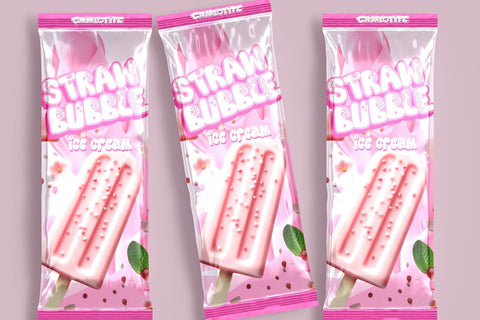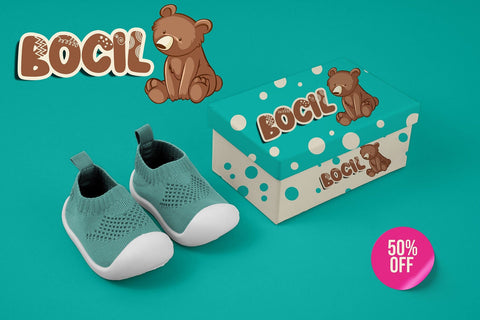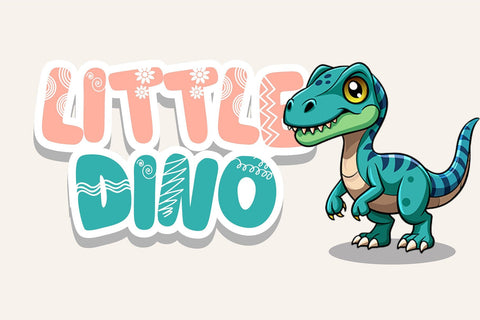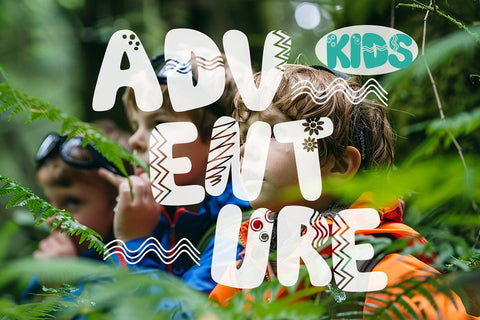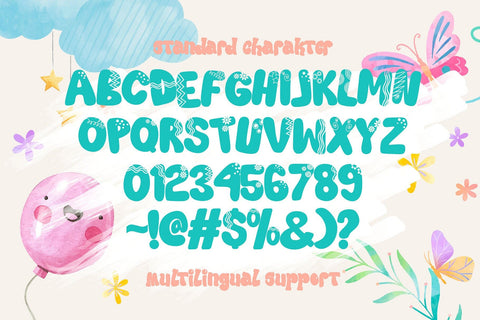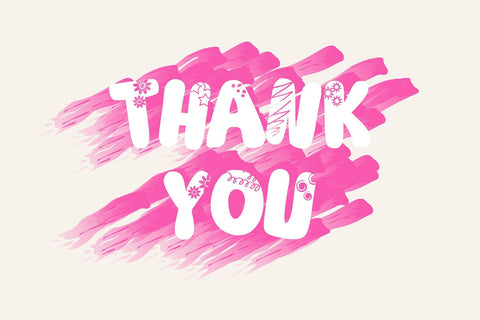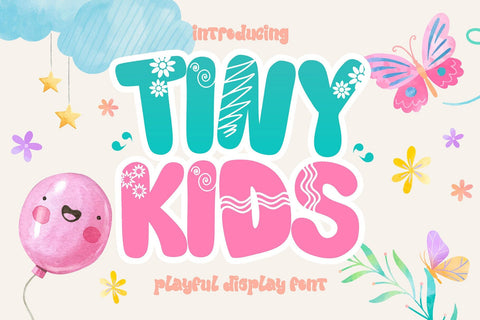
Tiny Kids - Playful Decorative Display Font
"Tiny Kids is a decorative, playful display font that captures a sense of joy and creativity. With its fun, whimsical letterforms, this font is perfect for projects aimed at children, family, or any theme that calls for a lighthearted, cheerful touch. Tiny Kids adds charm and personality to any design, making it an ideal choice for children’s books, packaging, toys, posters, and playful branding. Its friendly and approachable style makes it perfect for capturing youthful energy and creating an inviting, imaginative look."
- Cute Decorative Characters